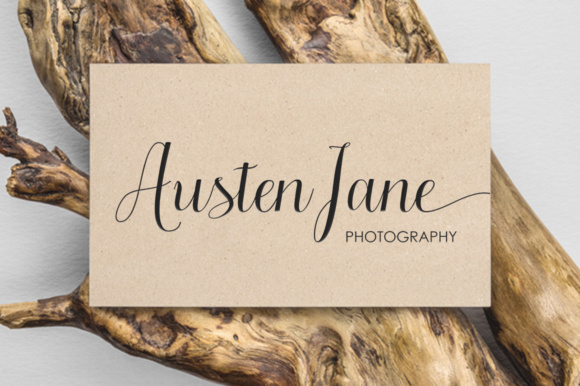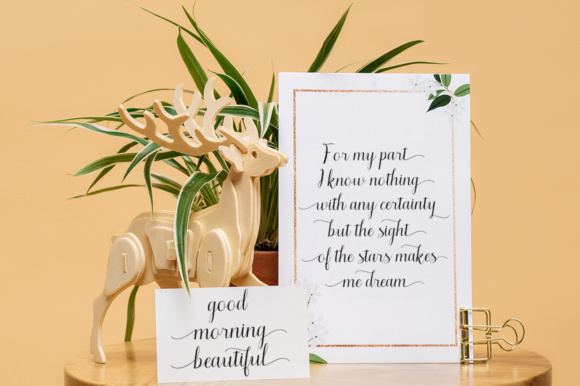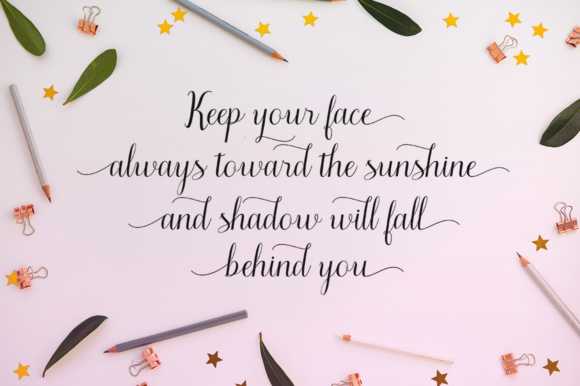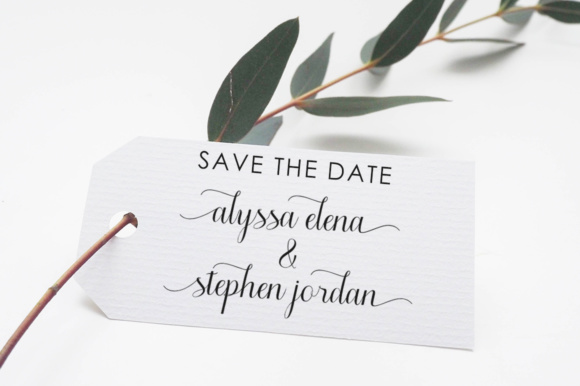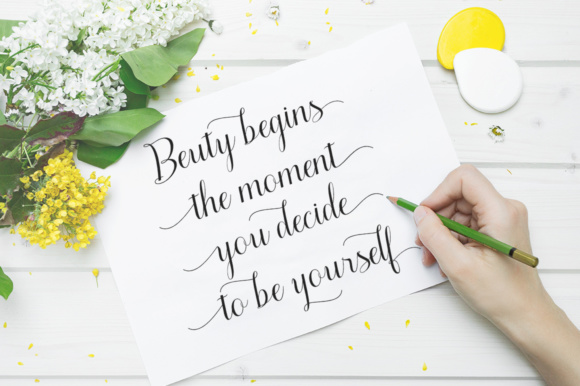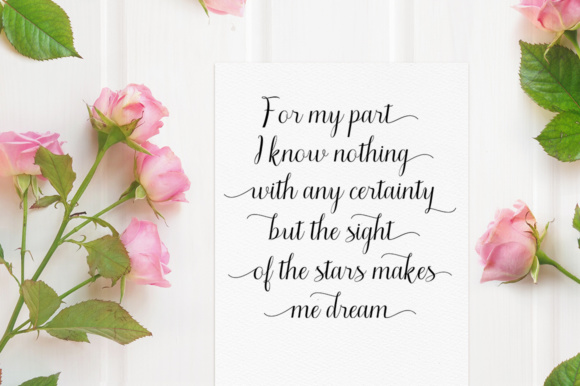
Amellya Script Font
About Amellya Script Font
The Amellya is a new, modern script font with an irregular baseline. It has a trendy and feminine style which looks lovely on wedding invitations, thank you cards, quotes, greeting cards, logos, business cards and more. Perfect for using in ink or watercolor.